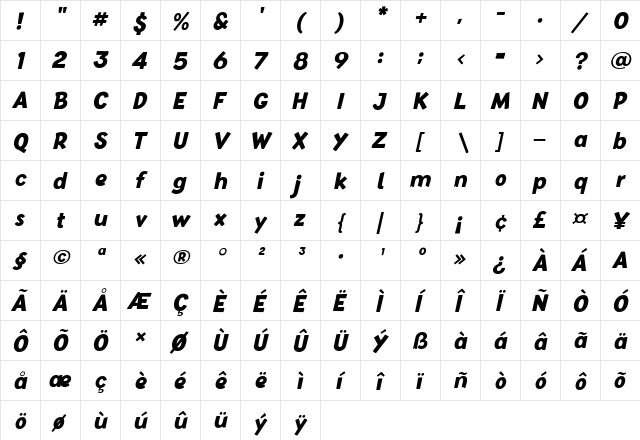
Baby School Italic
| Designer | Zamroni Hamzah |
Design Context for Baby School Typeface
Baby School is a composed and adaptable typeface that performs quietly and consistently across a wide range of design contexts. The dynamic lean of this cut emphasises speed and emphasis in any layout.
Pro Tip: Try Baby School for annotation and caption copy alongside an upright companion — the contrast in angle creates a dynamic but ordered typographic system.